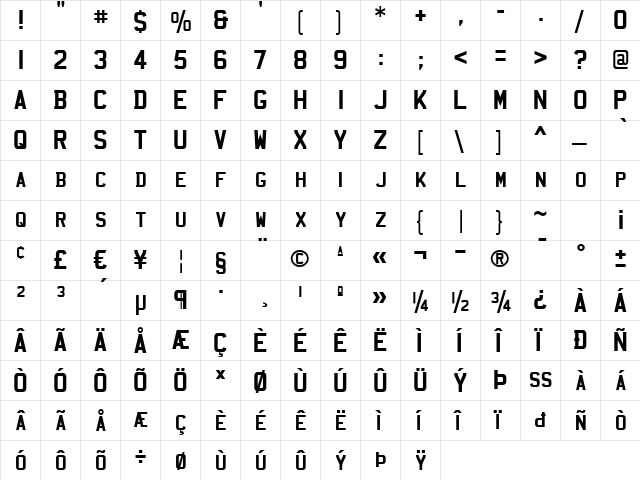
Mandatory Regular
| Copyright | Mandatory by Keith Bates is a full typeface based on the font used for UK vehicle registration plates, but with improved M and W stem separation. K Type Freebie 004. |
Design Context for Mandatory Typeface
Mandatory offers clean, dependable letterforms without strong stylistic allegiance, making it a practical choice for designers who need flexibility.